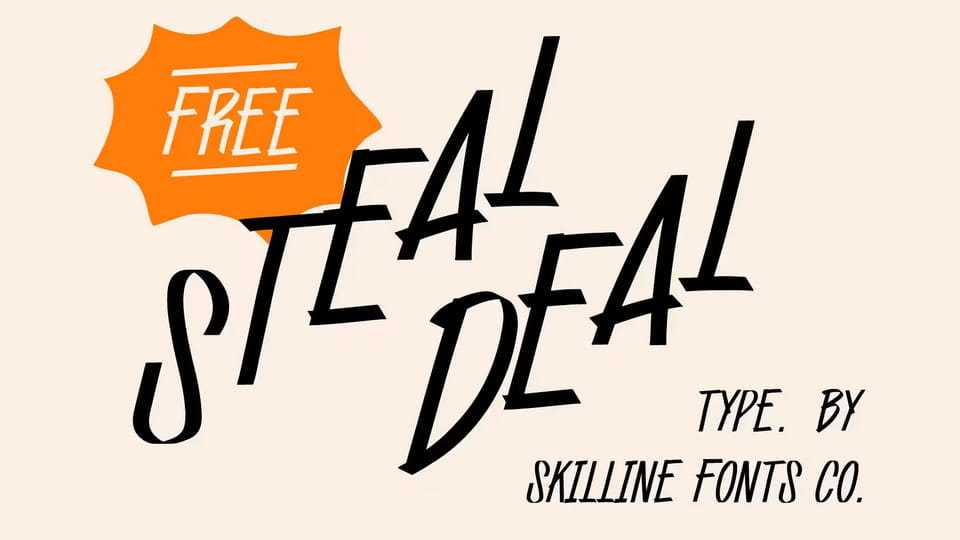
Download Steal Deal font, a sharp, expressive handwritten display typeface inspired by fast marker lettering, price tags, and street-style typography. Its dynamic strokes and angled forms give it a sense of urgency and energy, making it ideal for bold promotional use.
Designer: Skilline Fonts